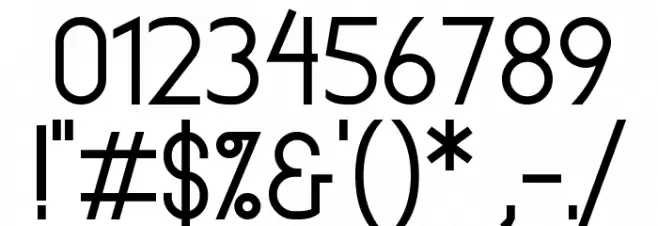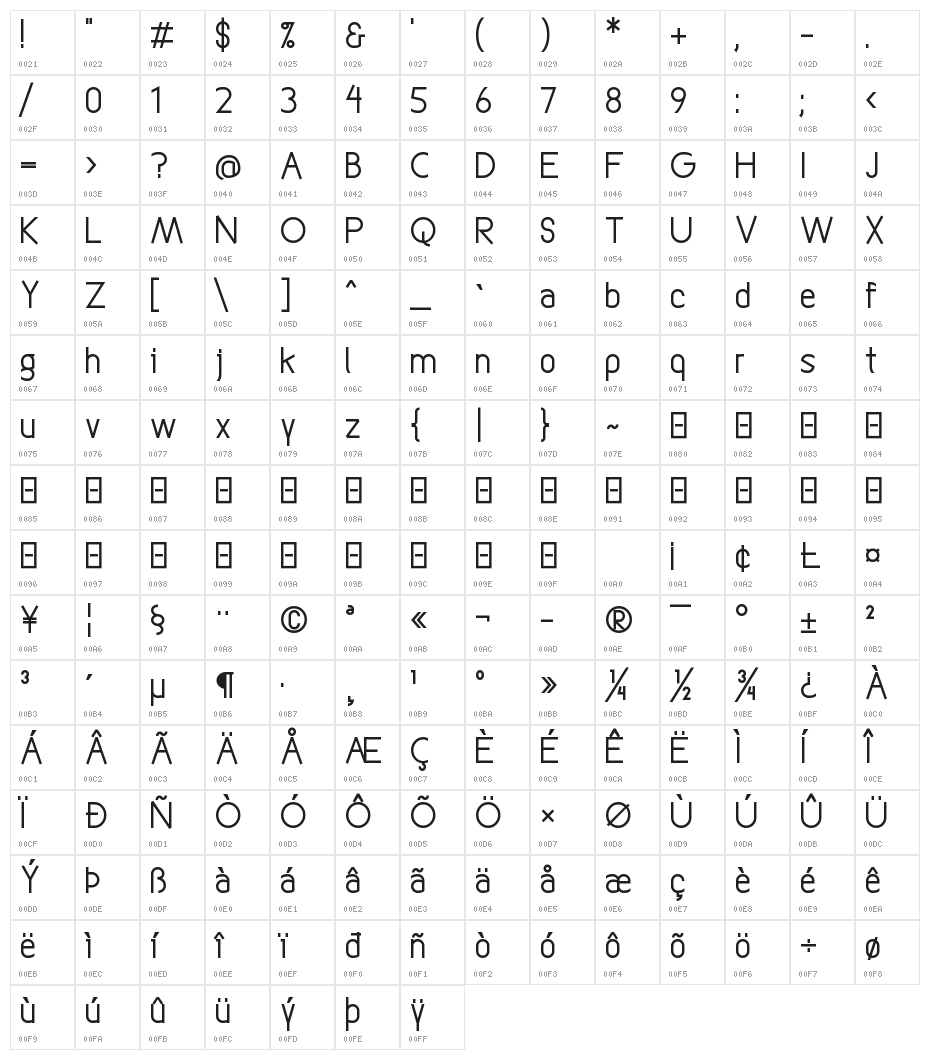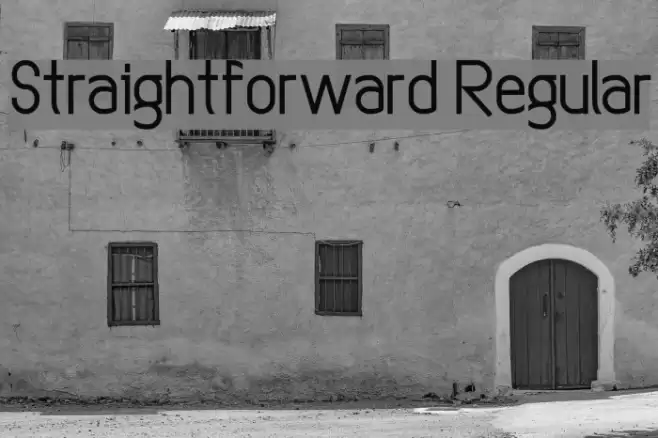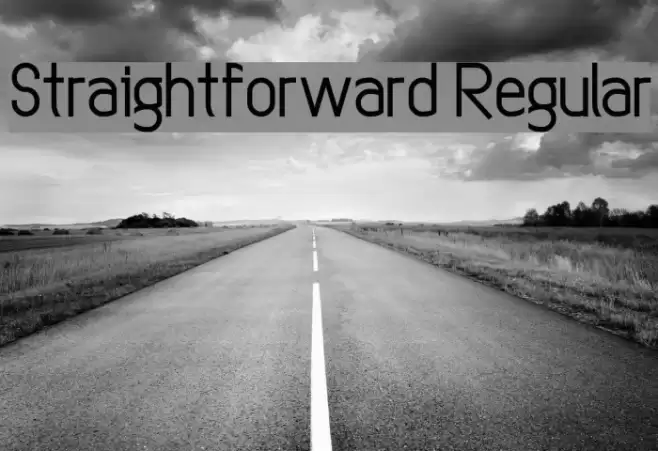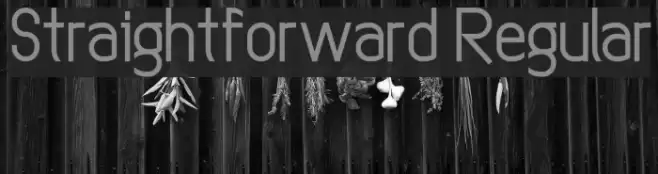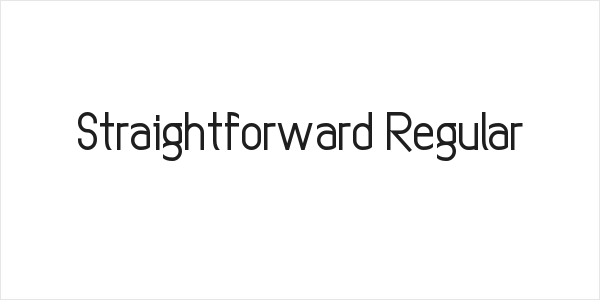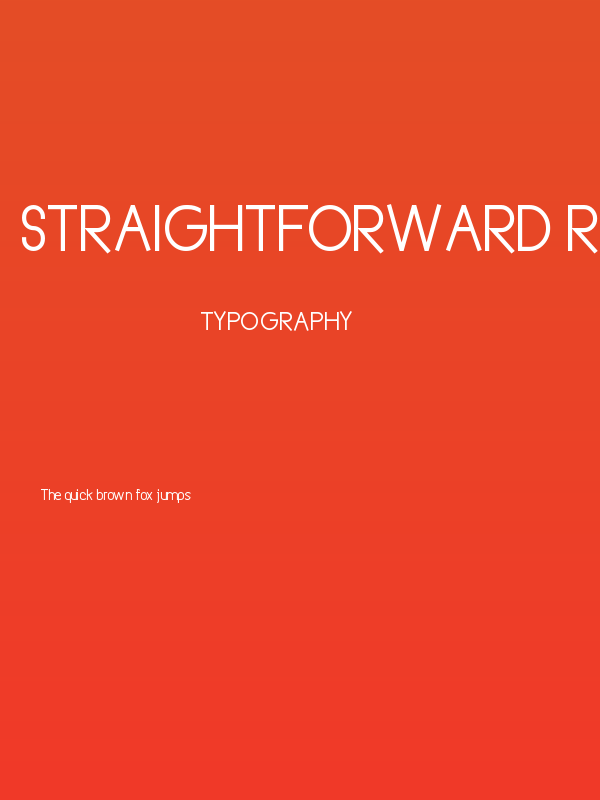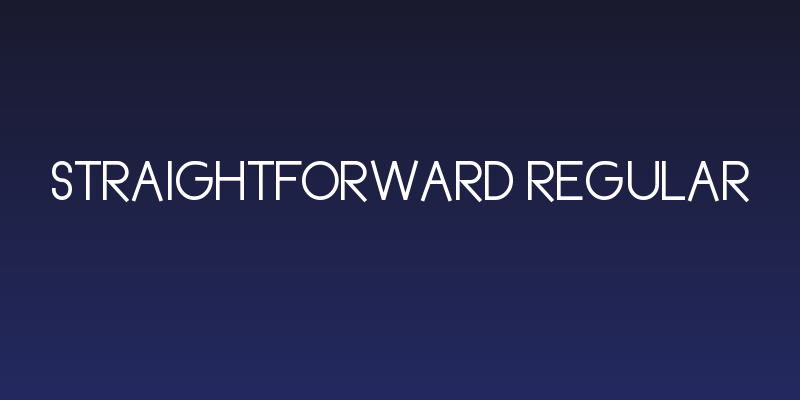
Straightforward Regular Font
Straightforward Regular Description
This font exhibits a clean and modern sans-serif style, characterized by its geometric shapes and uniform stroke widths. The uppercase letters are tall and slightly condensed, offering a sleek and professional appearance. The lowercase letters maintain a consistent height, contributing to a harmonious and balanced look. Numerals are clear and easily distinguishable, making them suitable for various applications. The special characters are well-defined, ensuring readability and versatility. Overall, this font is designed for clarity and functionality, making it ideal for digital and print media.